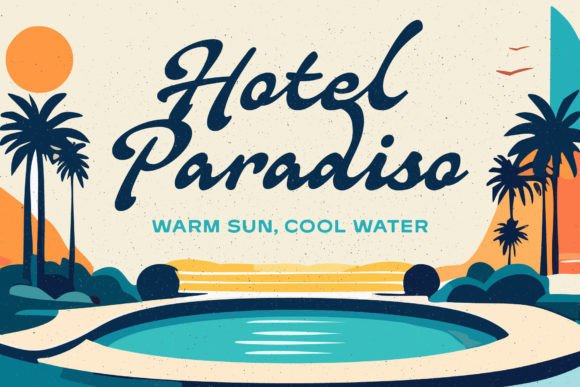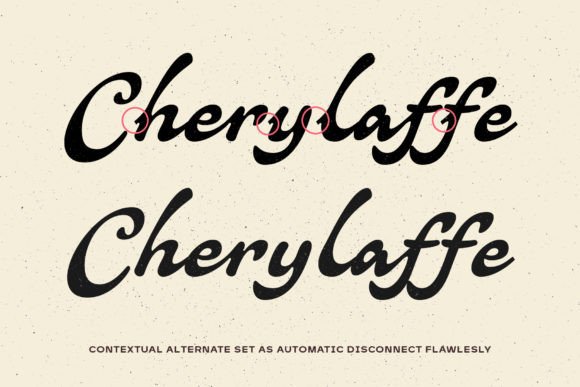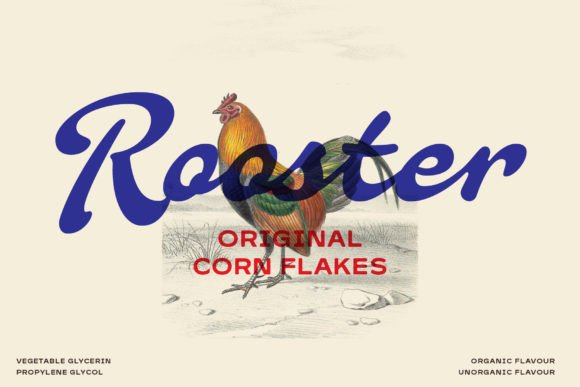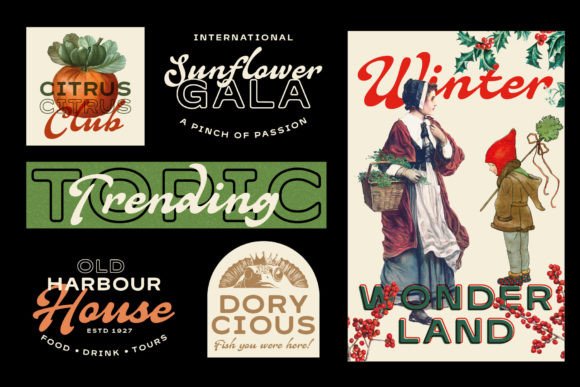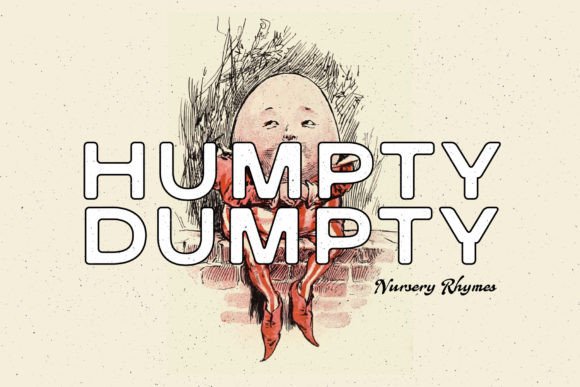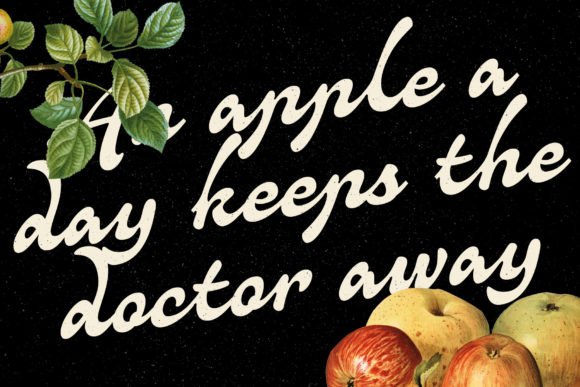
Introduction to Quiscript Quisans Font
Introducing Quiscript and Quisans Inky Font Duo – a timeless pairing of elegance and versatility.
This duo features a beautifully crafted script font alongside an all-caps sans serif, each exuding a classic, soft, and vintage charm The script font flows with inky, hand-drawn strokes, while the sans serif boasts bold, clean lines, enhanced with an extra outline option for added depth and sophistication.